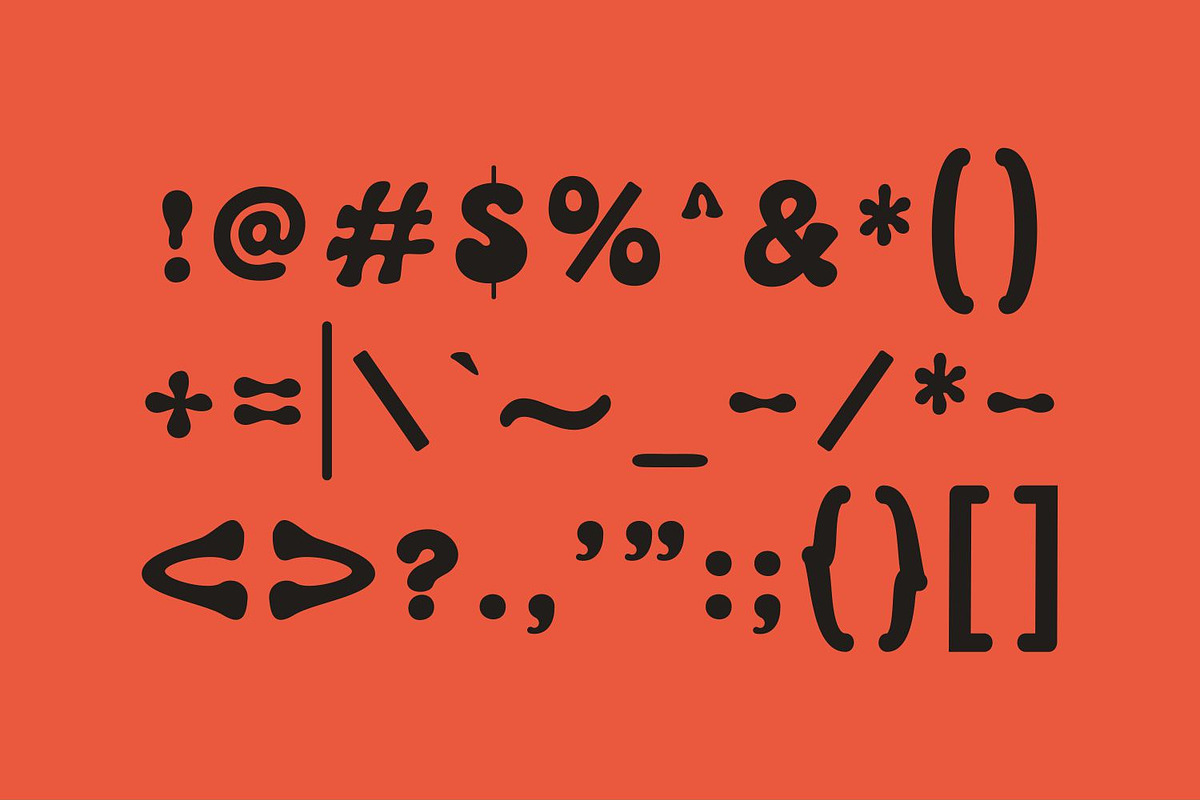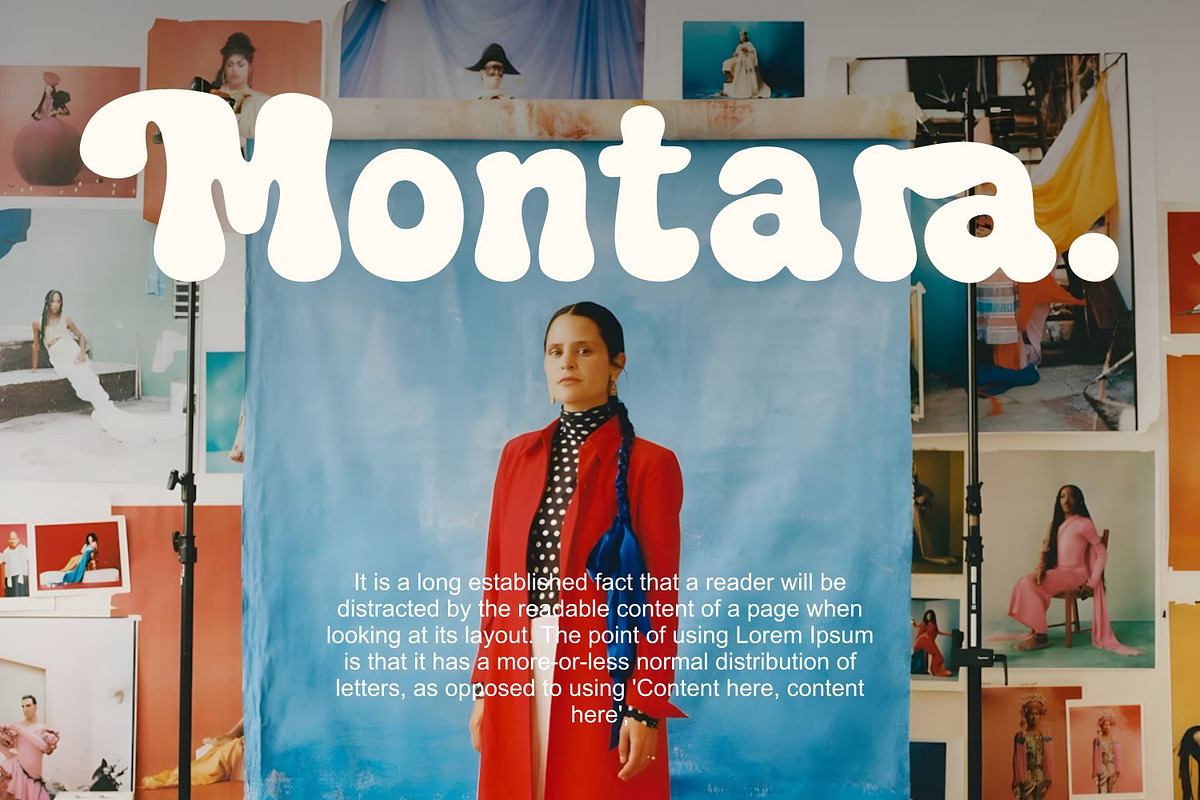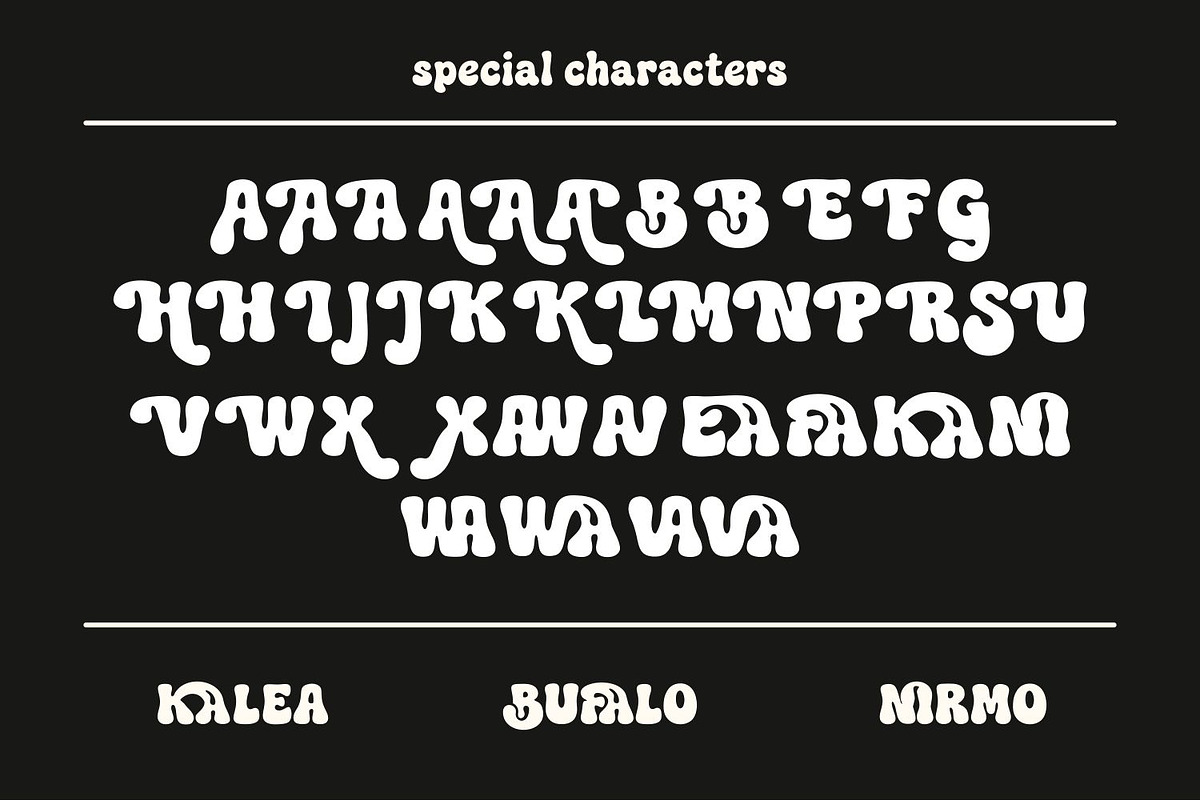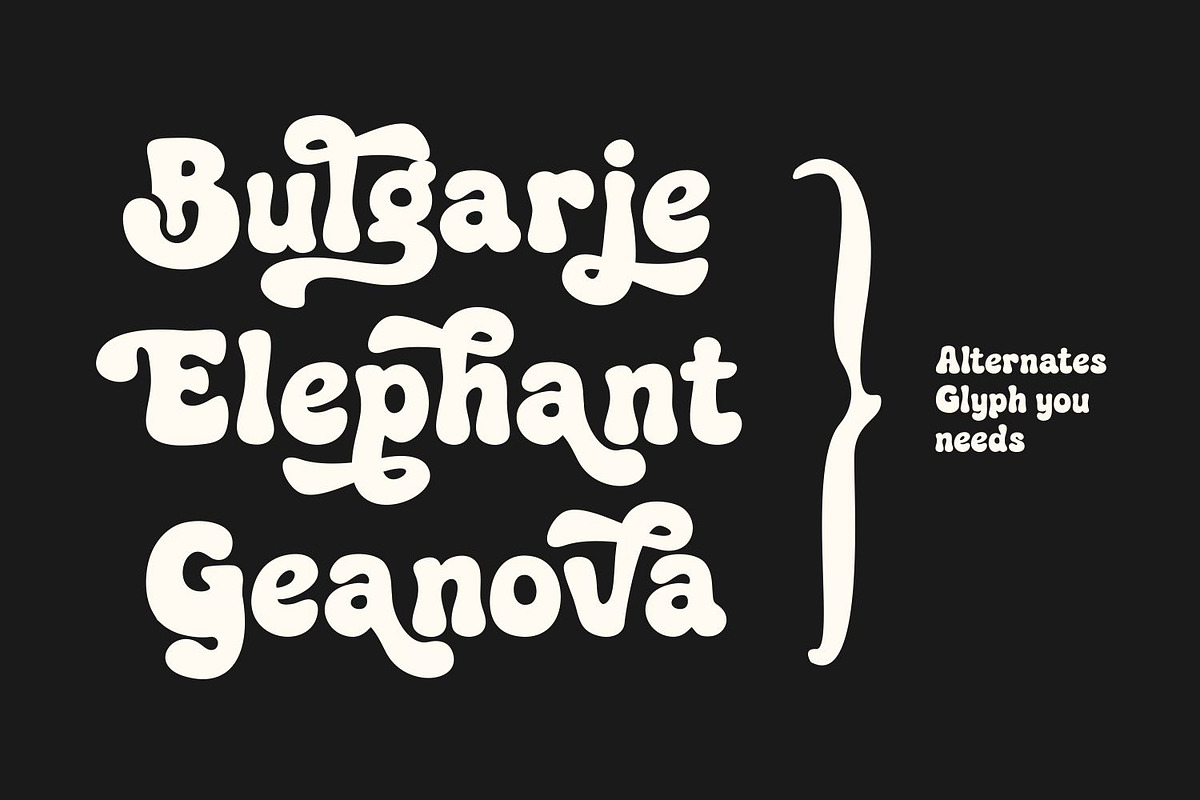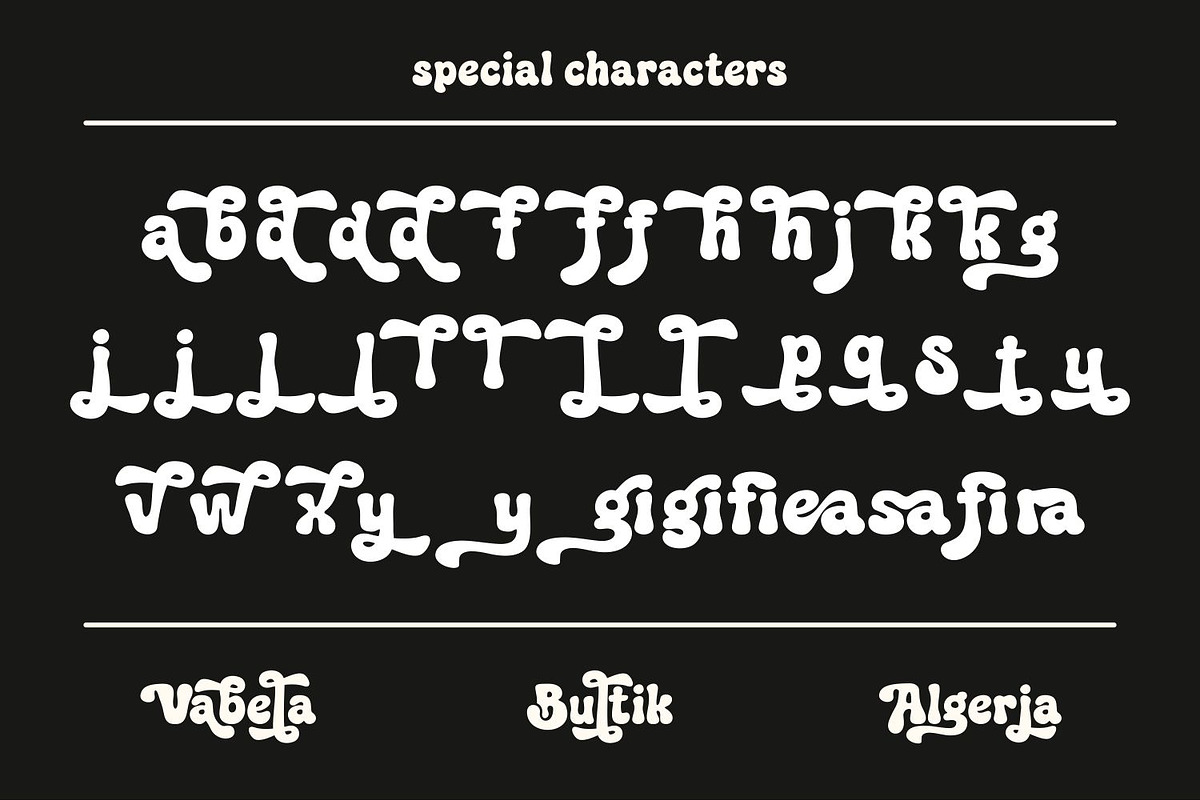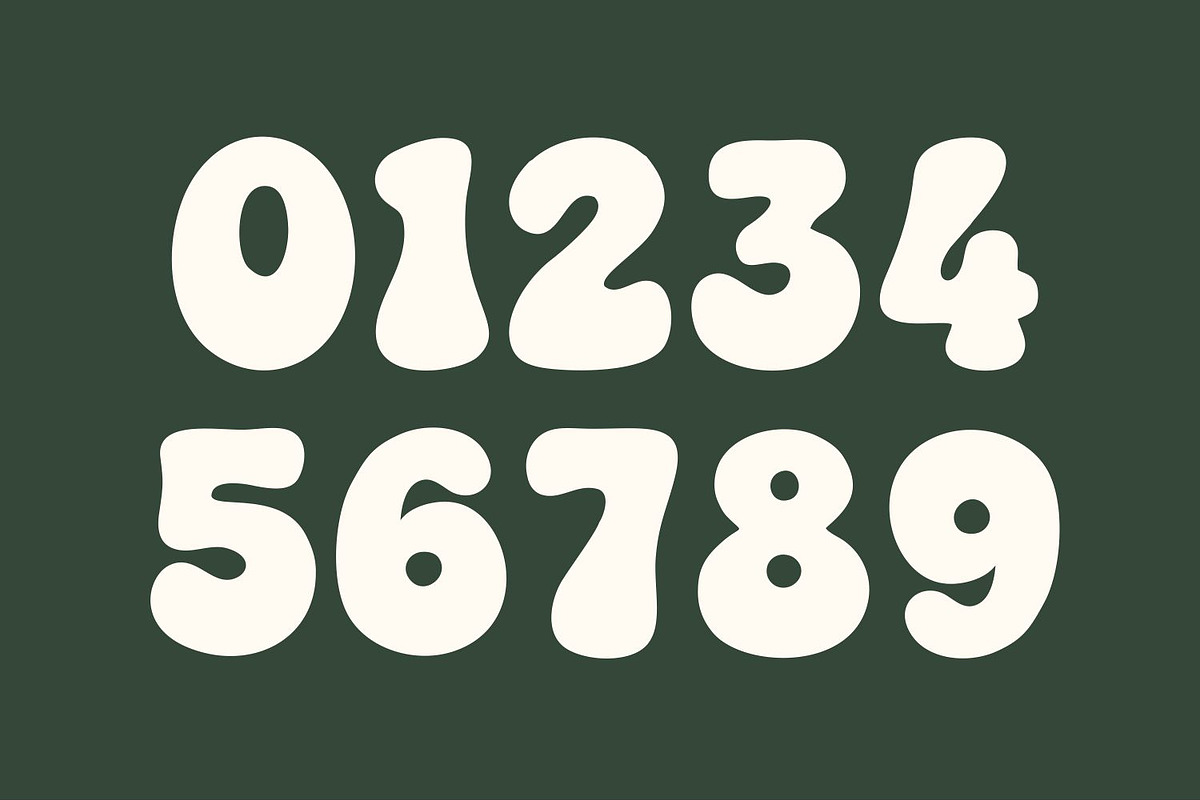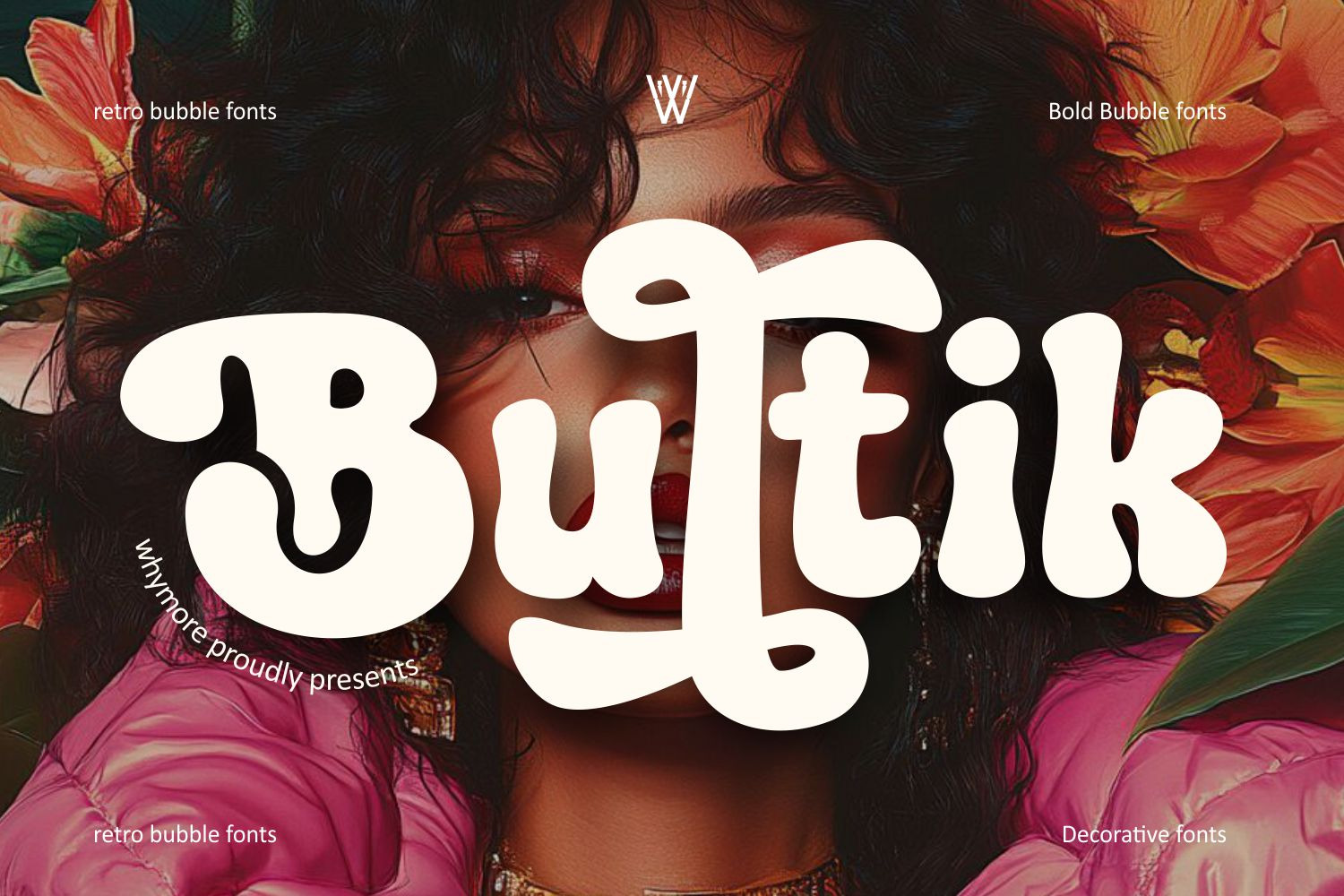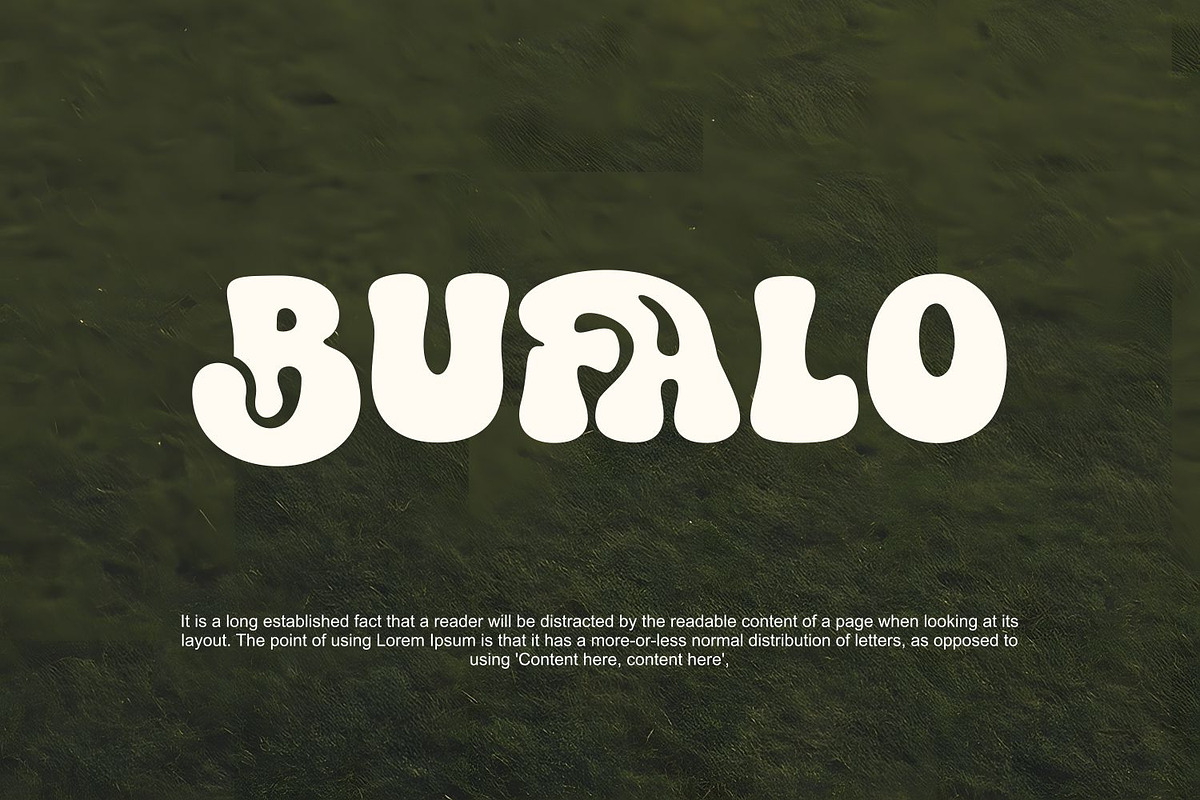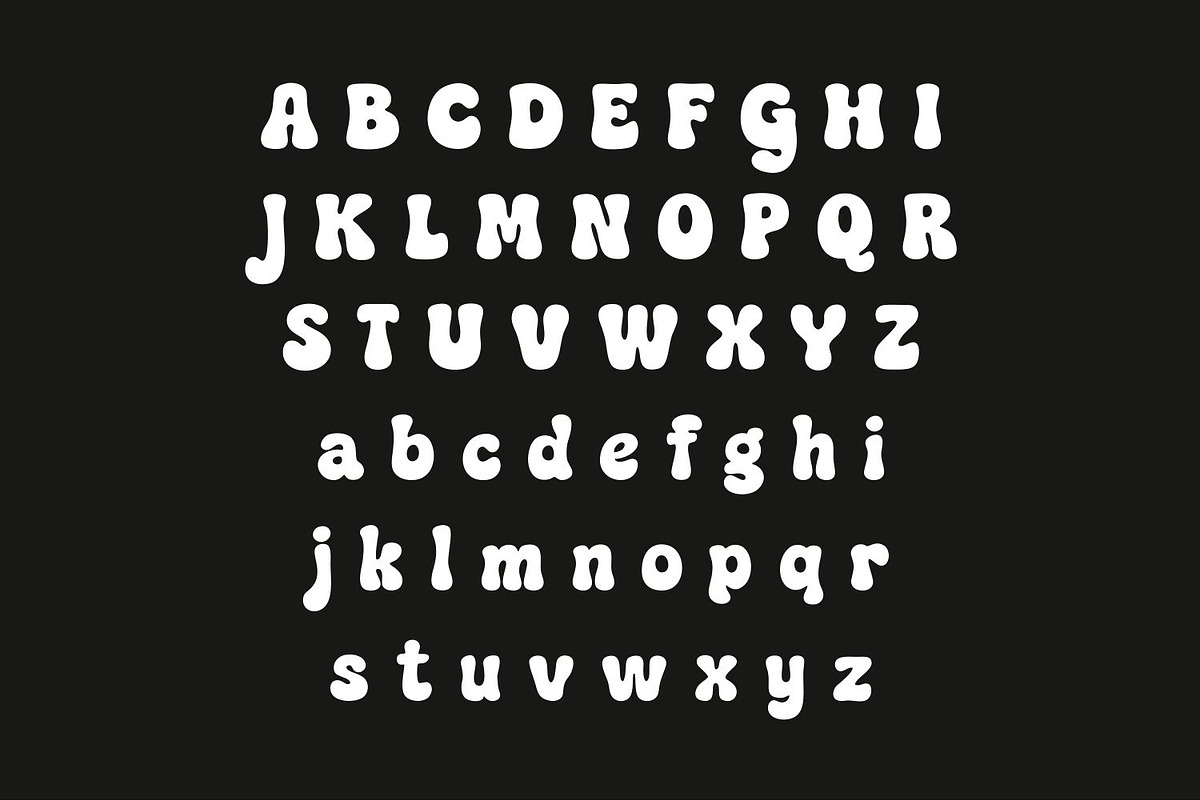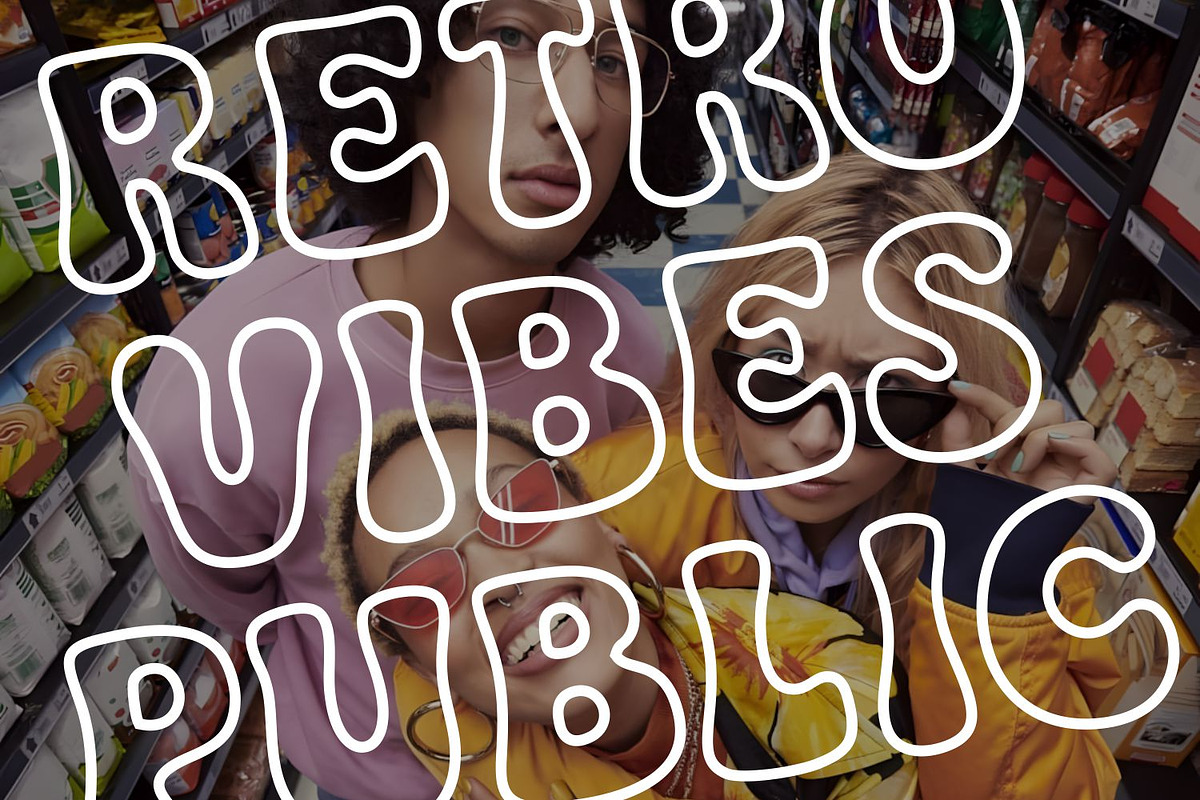
Bultik Retro Bubble Font for Groovy
Bultik is a retro bubble font that exudes the warm feel of the 70s with a stylish and distinctive modern touch. Each curve of the letters has a bold and soft shape that creates a friendly, fun, and expressive impression, perfect for design projects that want to stand out and have a free spirit.
This font is designed to provide a strong visual identity, with unique decorative shapes that are memorable and flexible for use in various creative contexts—from vintage posters, album covers, fashion branding, packaging, to retro-modern logos.
As a visual communication designer, you'll love how Bultik creates a “feel-good nostalgia” atmosphere without losing its professional touch. This font isn't just typography; it's a visual communication tool that brings your designs to life and strengthens their message.
✅ It gives a soft and adorable retro-modern impression. ✅ It is ideal for branding, quotes, merchandise, and editorial design. ✅ It is suitable for designers who want to create a visual identity with unique and memorable characters. ✅ It is created with a balance between playful and elegant, so it remains easy to read in various sizes.